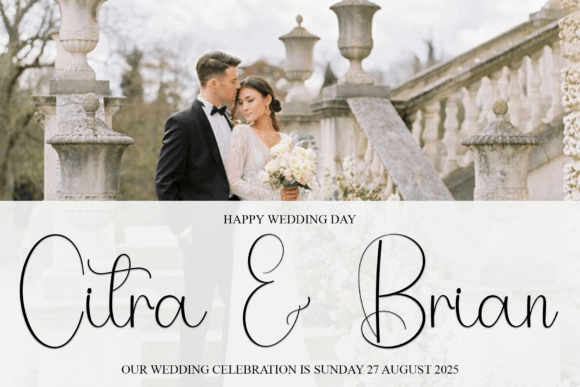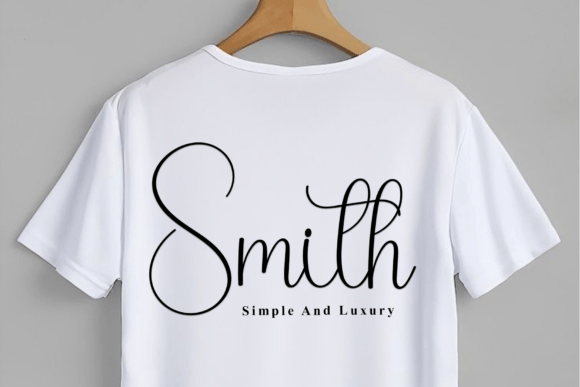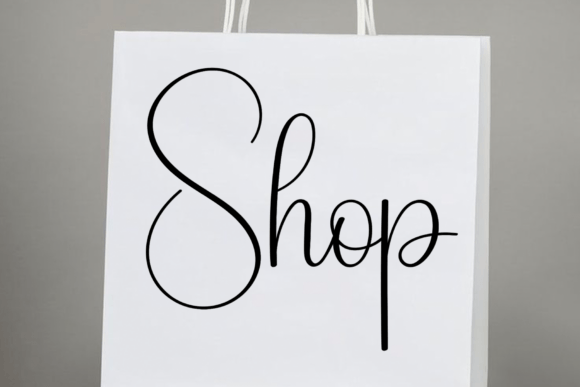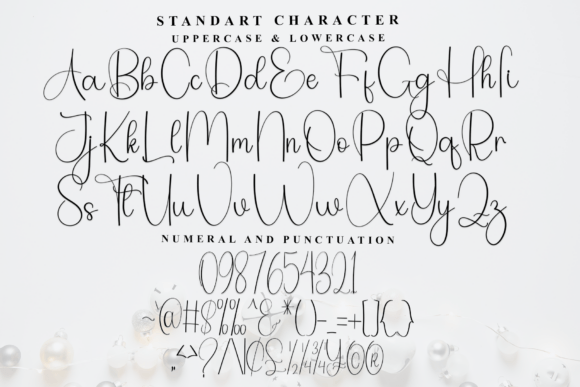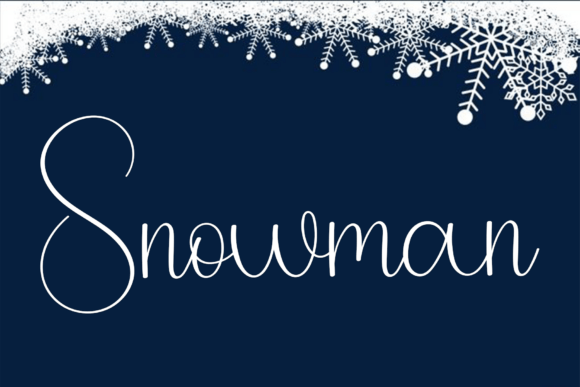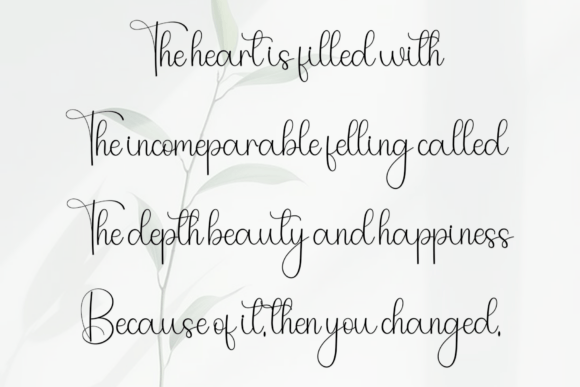
The Awesome Font: A Delicate and Elegant Handwritten Masterpiece
I’ll never forget the moment I stumbled upon the Awesome font. I was working on a project for a client who wanted a elegant and sophisticated look, but I was struggling to find the right font. That’s when I discovered Awesome, and it completely transformed my design. The distinct and well-balanced letters, the incredibly versatile style, and the ease of use with PUA encoding – it was love at first sight! ✨
- ✨ Delicate and elegant handwritten style that’s perfect for a variety of design projects
- ✅ Well-balanced letters that make reading easy and enjoyable
- 🎉 Incredibly versatile style that works well for both digital and print designs
- 🔍 PUA encoded for easy access to amazing glyphs and ligatures
While Awesome is an amazing font, there are a few things to keep in mind. ⚠️ Some users may find that the font can be a bit too delicate for certain design projects, such as those that require a bold statement. Additionally, 🤔 the font may not work well with very small font sizes, as some details may get lost.
The Story Behind Awesome: Designer Inspiration
The Awesome font was designed with the goal of creating a delicate and elegant handwritten font that’s perfect for a variety of design projects. The designer, who wishes to remain anonymous, drew inspiration from classic calligraphy and handwriting styles to create a unique and versatile font. With its well-balanced letters and incredibly versatile style, Awesome is sure to become a favorite among designers and crafters alike.
Q: What is PUA encoding, and how does it work?
A: PUA (Private Use Area) encoding is a way of encoding fonts that allows designers to access additional glyphs and ligatures. With PUA encoding, you can easily access the amazing glyphs and ligatures in the Awesome font.
Q: Is Awesome a sans-serif font?
A: No, Awesome is a handwritten script font with a delicate and elegant feel. It has a distinctive and well-balanced letterform that’s perfect for a variety of design projects.